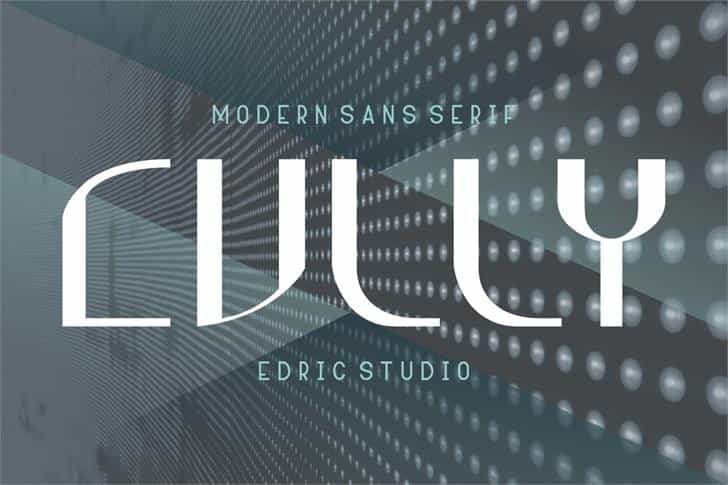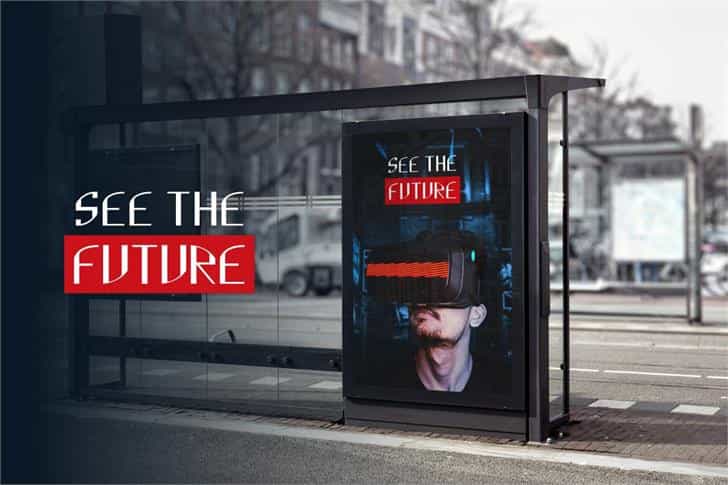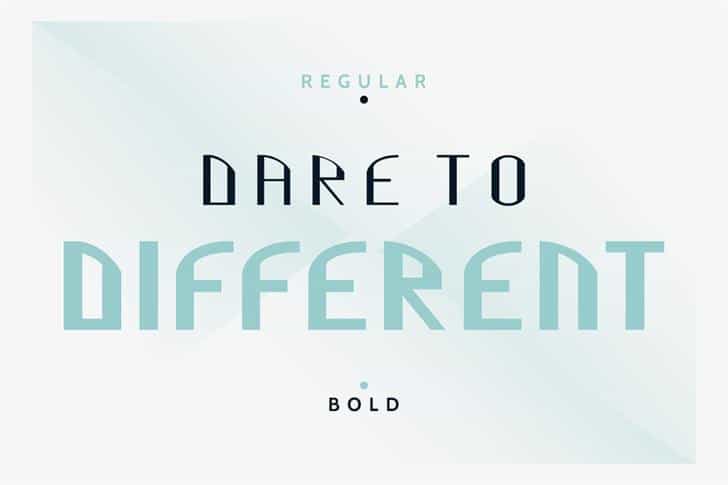
Introducing our new reborn font : Cully! It is a new modern decorative Futuristic Font with fresh styled glyphs that gives the font a new appealing look. This is created on 2017 and last update on 2019 This font is compatible with PC & MAC with simple installations.